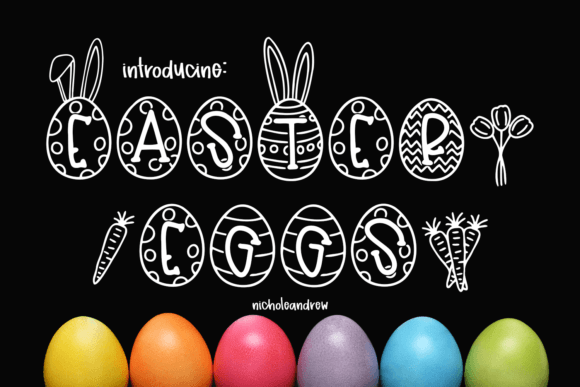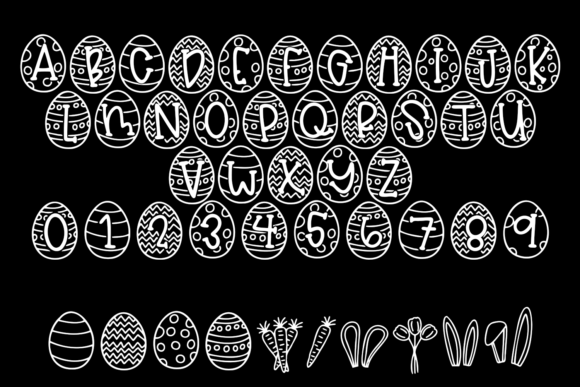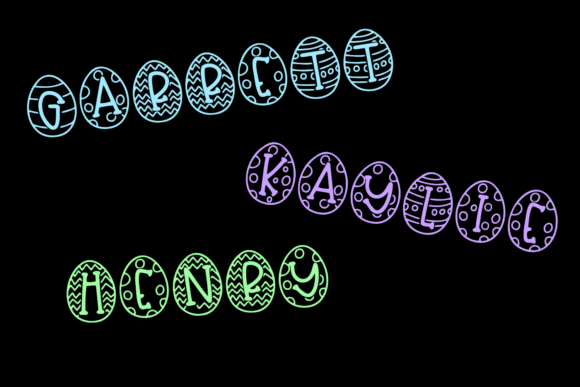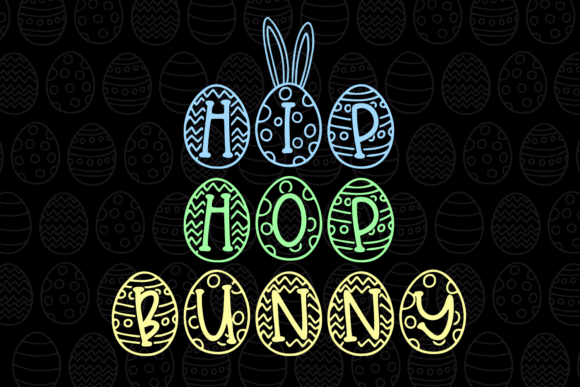
Spring into Creativity with Easter Eggs Font
As I sit at my desk, surrounded by the warmth of spring, I find myself dreaming up new projects that capture the essence of the season. And what’s more spring-like than Easter eggs? The thought of designing with Easter Eggs Font sends a wave of excitement through me, and I can’t wait to share it with you.
Easter Eggs Font is a delightful display font featuring letters nestled inside adorable pastel-colored Easter eggs. It’s the perfect addition to any Easter-themed design, adding a fun and cheerful touch that’s sure to bring a smile to people’s faces. For designers, Easter Eggs Font is a valuable asset, offering a unique and creative way to express themselves during the spring season.
With Easter Eggs Font, the possibilities are endless. Whether you’re creating Easter-themed invitations, social media graphics, or even a website design, this font is sure to bring a touch of whimsy and joy to your project.
Easter Eggs Font Key Features
- Unique Characteristics: Easter Eggs Font features a unique blend of playful and whimsical designs, making it ideal for creative projects, such as children’s books, educational materials, and advertisements.
- Kerning and Ligatures: Easter Eggs Font includes advanced kerning and ligature features, ensuring smooth and even spacing between characters for professional-looking typography.
Easter Eggs Font Review
Overall, I think the Easter Eggs Font has some great qualities, but it’s not without its flaws. Let’s start with the positives. ✨ I love the playful, whimsical feel of this font. It’s perfect for spring-themed projects or anything that needs a bit of Easter magic. The font is also incredibly versatile, working well for both digital and print designs.
- ✨ Unique and playful design that’s perfect for Easter-themed projects
- ✨ Highly versatile, suitable for both digital and print designs
- ✨ Includes a wide range of characters, including special symbols and glyphs
Now, let’s talk about the limitations. ⚠️ While the Easter Eggs Font is great for Easter-themed projects, it may not be the best choice for more serious or formal designs. The font can also be a bit too flashy or overwhelming if used in large quantities. Additionally, some users may find the font’s quirks and imperfections to be distracting.
- ⚠️ May not be suitable for formal or serious designs
- ⚠️ Can be too flashy or overwhelming if used in large quantities
- ⚠️ Some users may find the font’s quirks and imperfections distracting
Overall, I’d give the Easter Eggs Font 3.5 out of 5 stars. It’s a fun and versatile font that’s perfect for spring-themed projects, but it may not be the best choice for more serious designs.